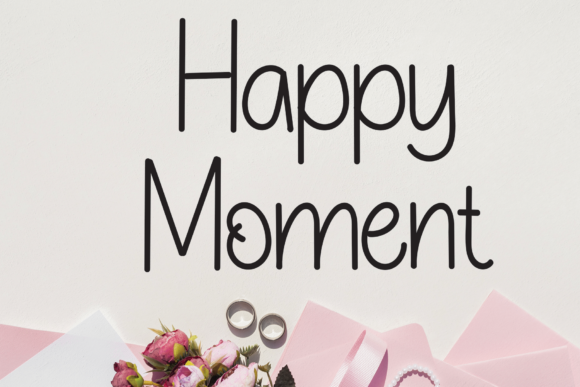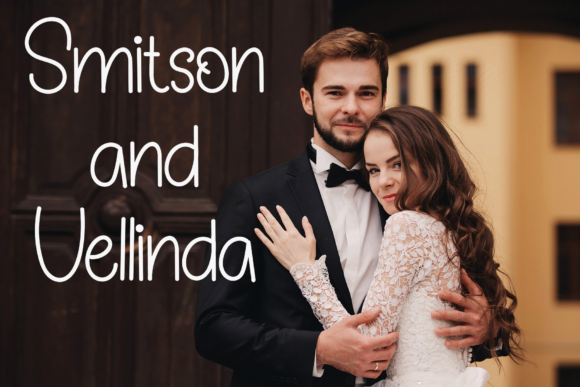
Mandala Wedding Font
db-ku.com - Script & Handwritten -- Mandala Wedding is a simple script font carefully created with a touch of elegance. Whether you’re looking for fonts for Instagram or calligraphy scripts for DIY projects, this font will turn any creative idea into a true piece of art!